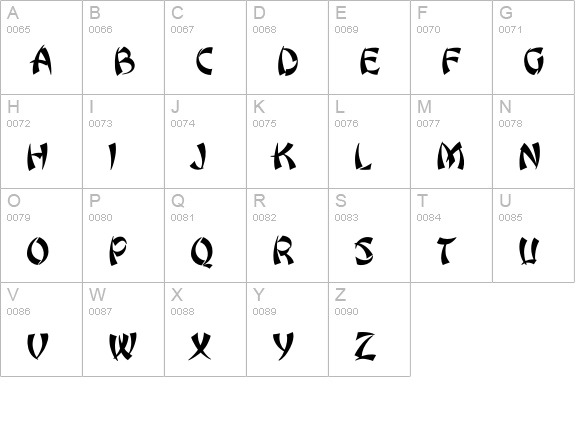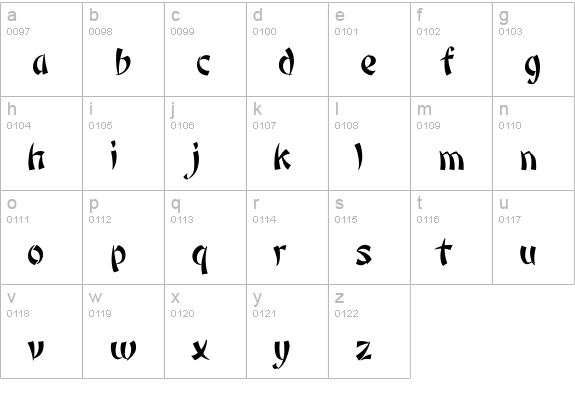
OPTIPeking Font Details
Introducing OPTIPeking font – a stunning display typeface that exudes elegance and sophistication. With its sleek lines and modern design, this font is perfect for adding a touch of class to any project. OPTIPeking font is versatile and can be used for a wide range of design applications, from branding to editorial design. What makes OPTIPeking font even more appealing is that it is available for free download at FontsMarket.com. This means that you can easily access this beautiful font and use it in your projects without any cost. Whether you are a designer looking to elevate your work or a business owner in need of a stylish font for your branding, OPTIPeking font is the perfect choice. Download it now and add a touch of sophistication to your designs!